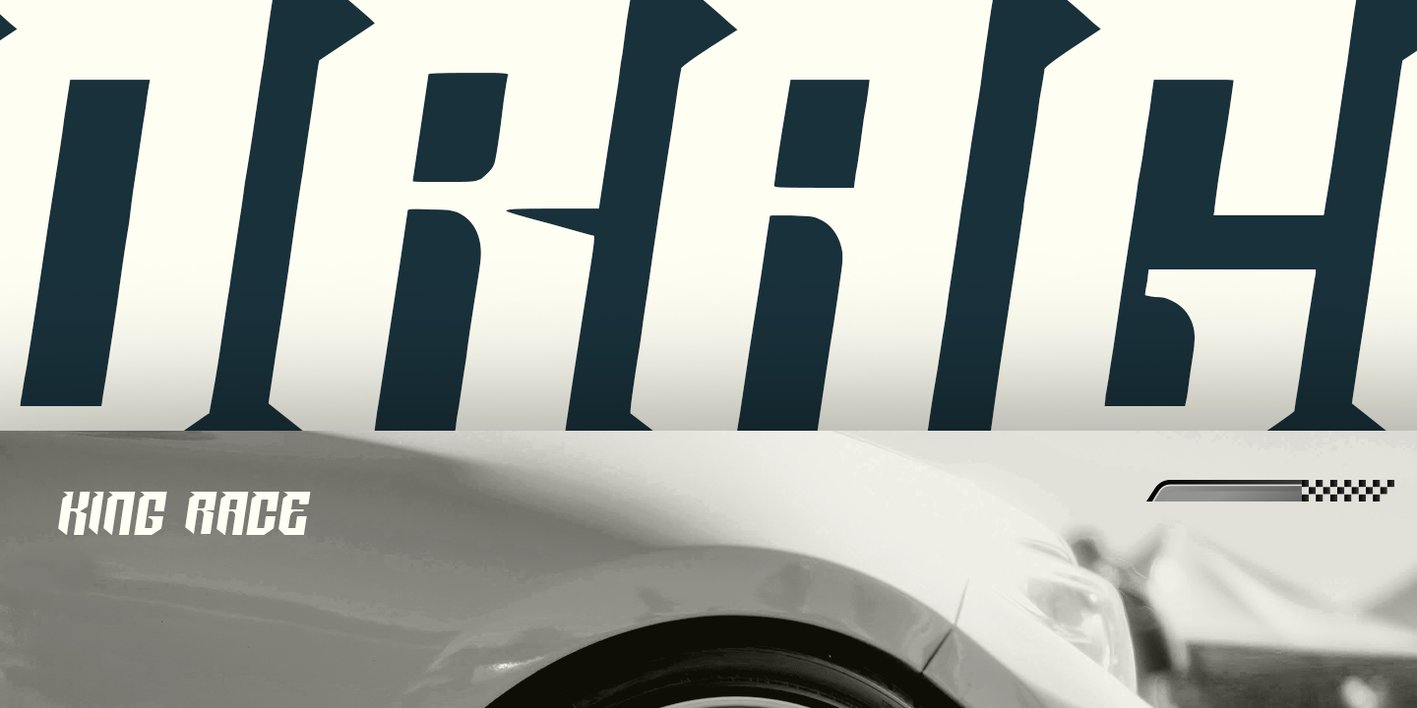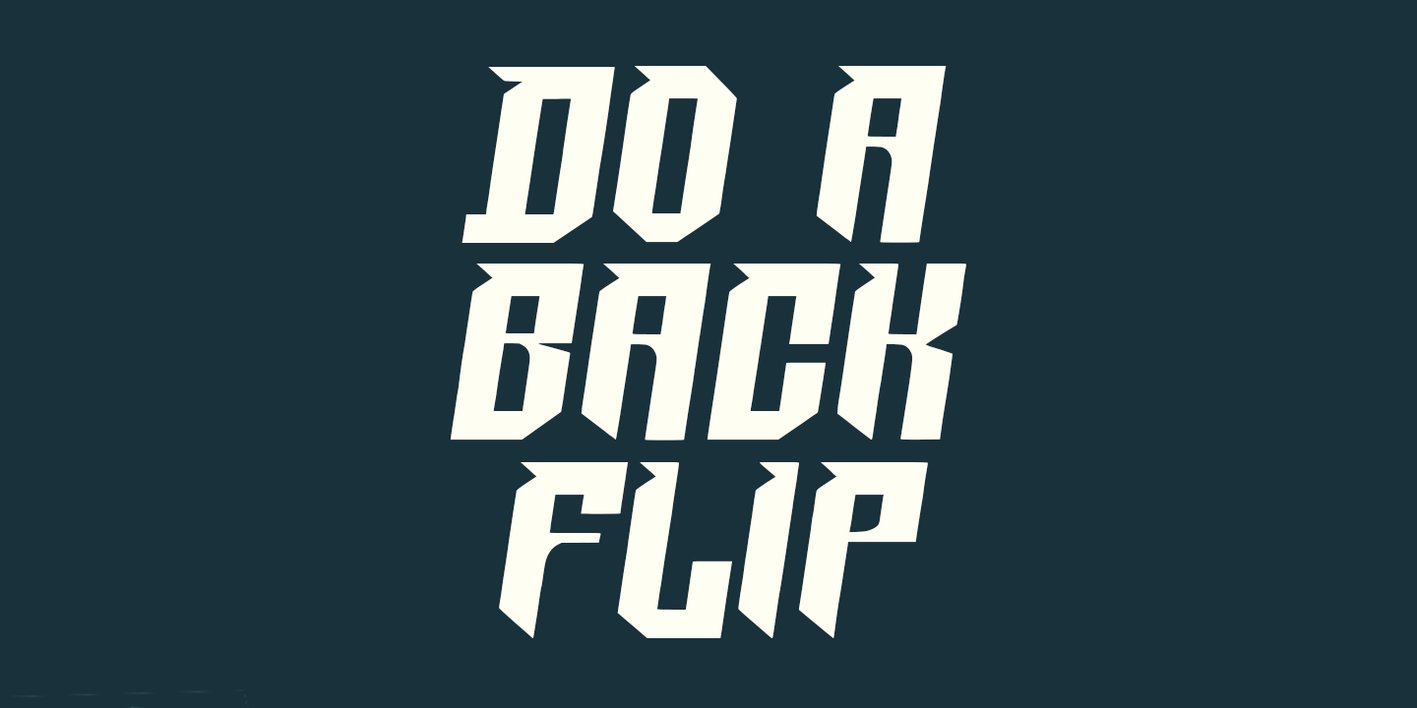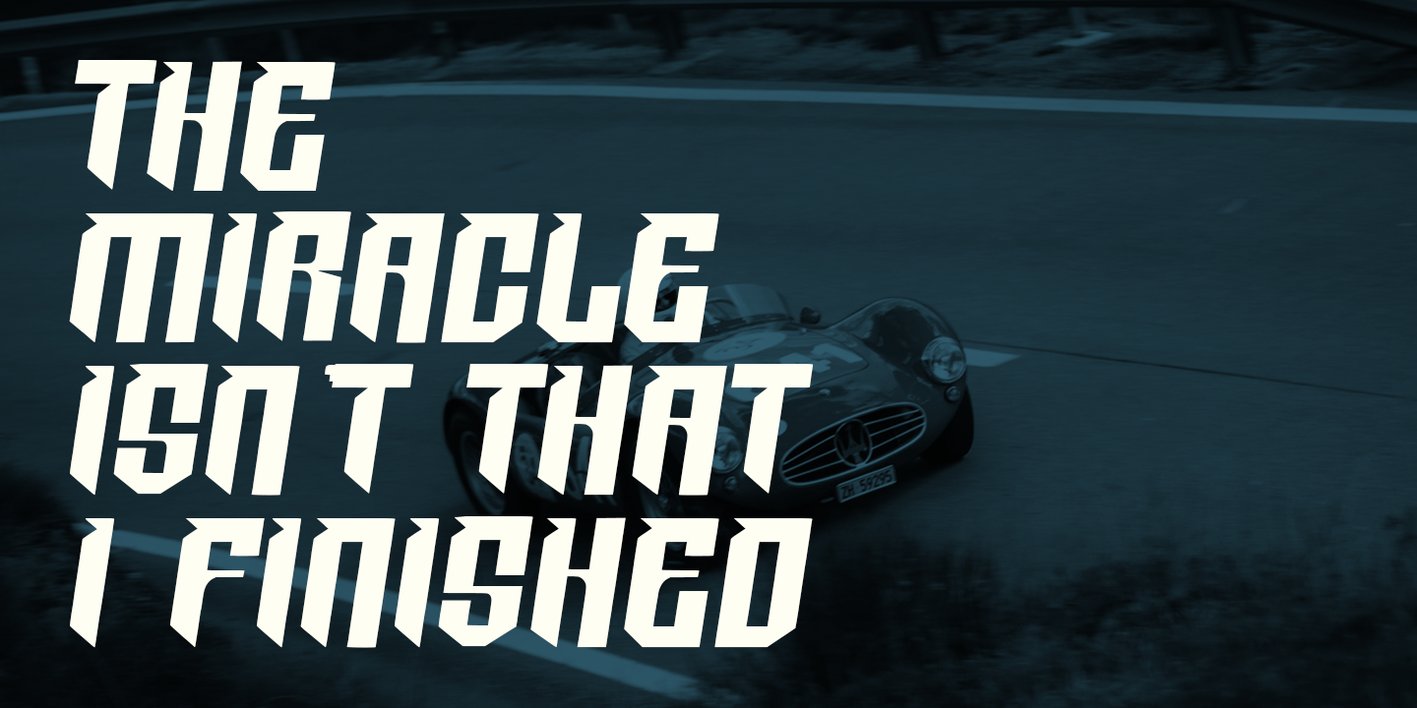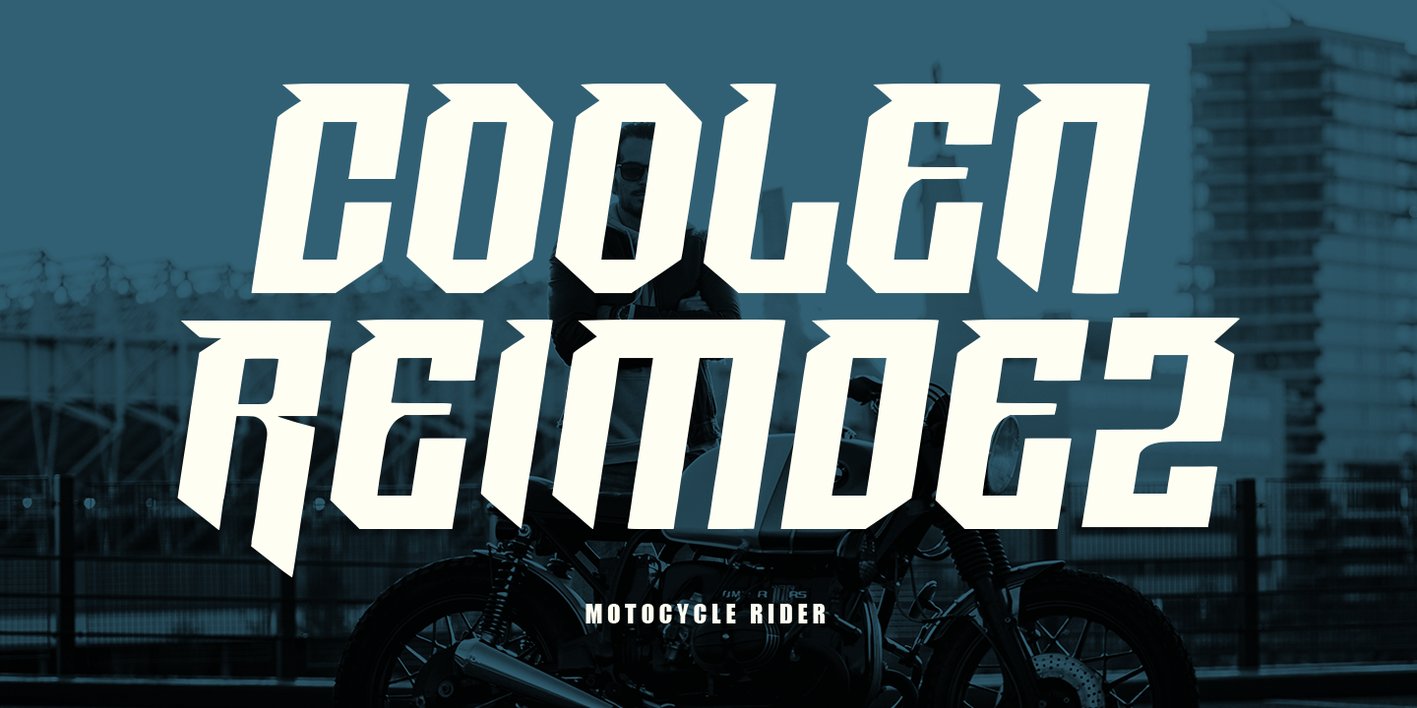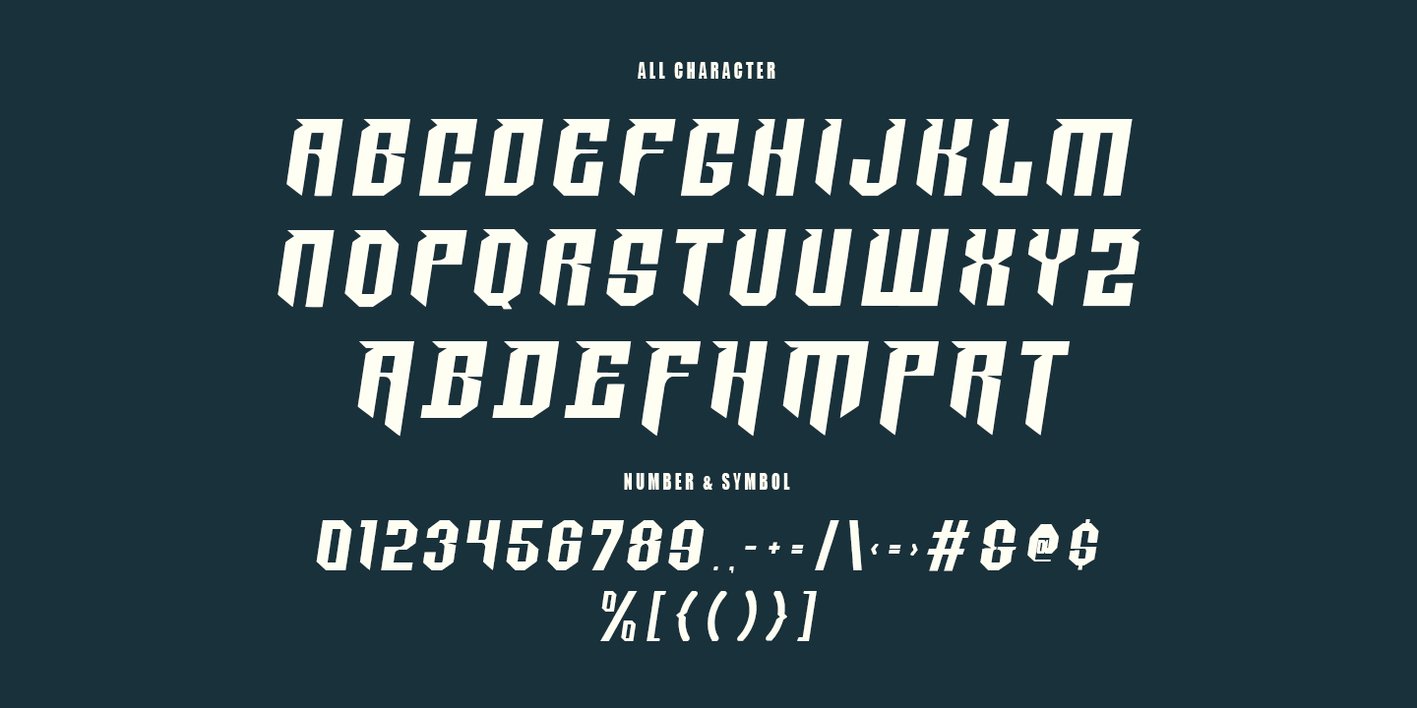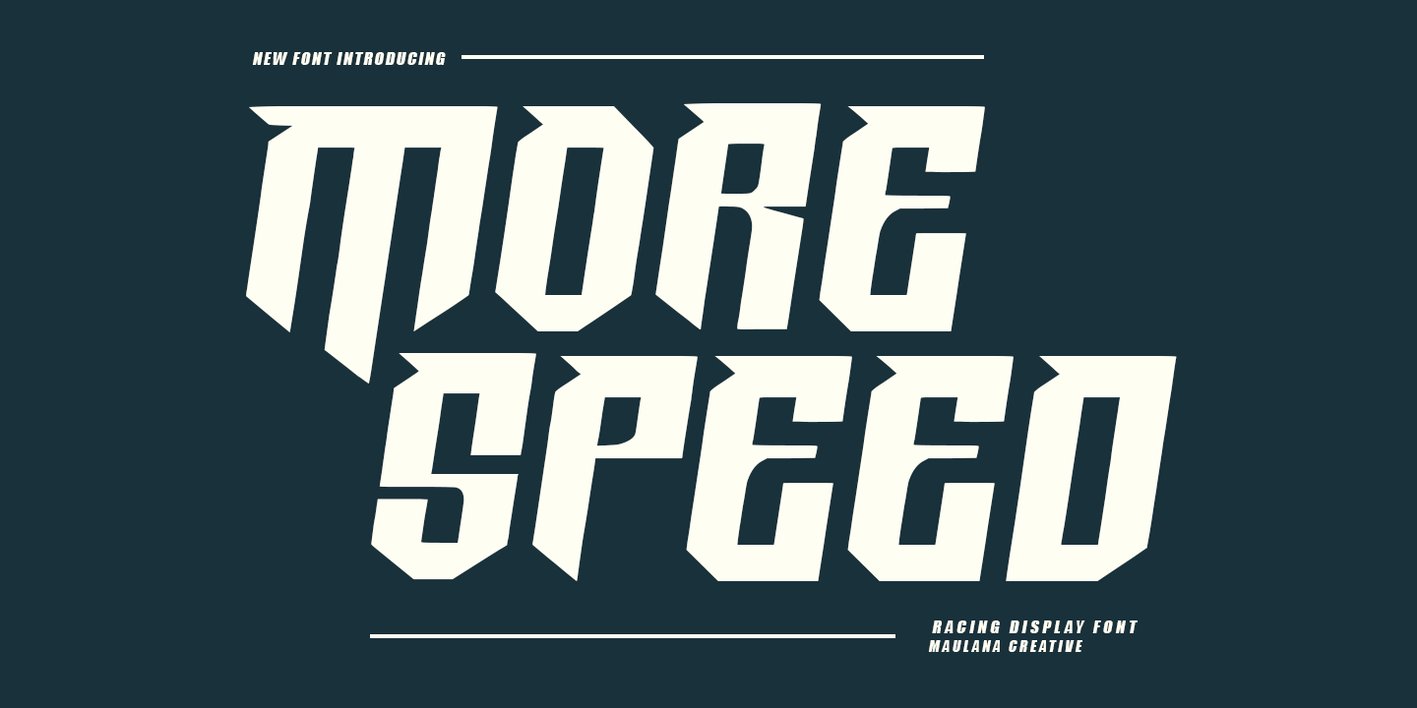
MC More Speed Font
More Speed is a futuristic speed display font. With bold tall and faster stroke, fun character with alternates. To give you an extra creative work. More Speed font support multilingual language. This font is good for logo design, Social media, Movie Titles, Books Titles, a short text even a long text letter and good for your secondary text font with sans or serif. Make a stunning work with More Speed font.